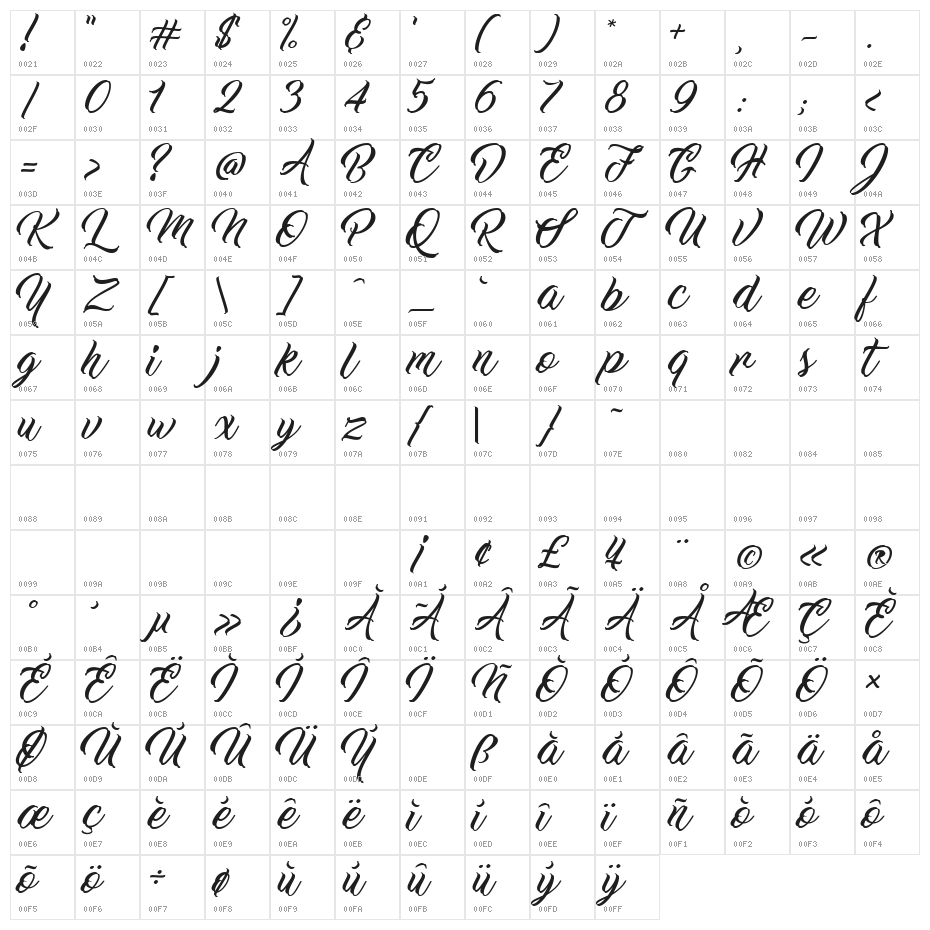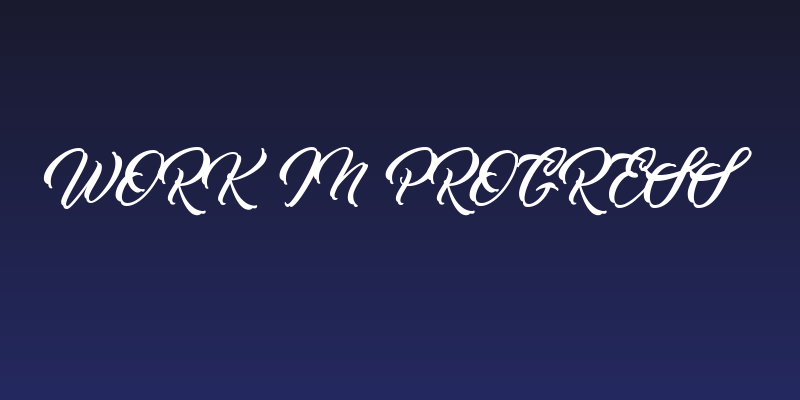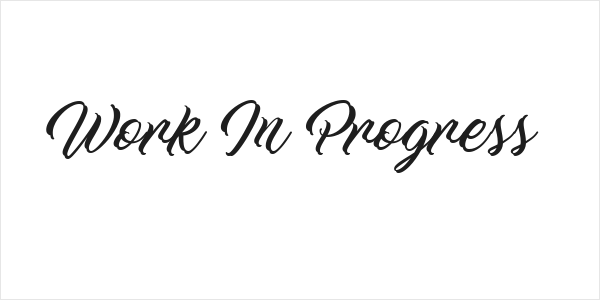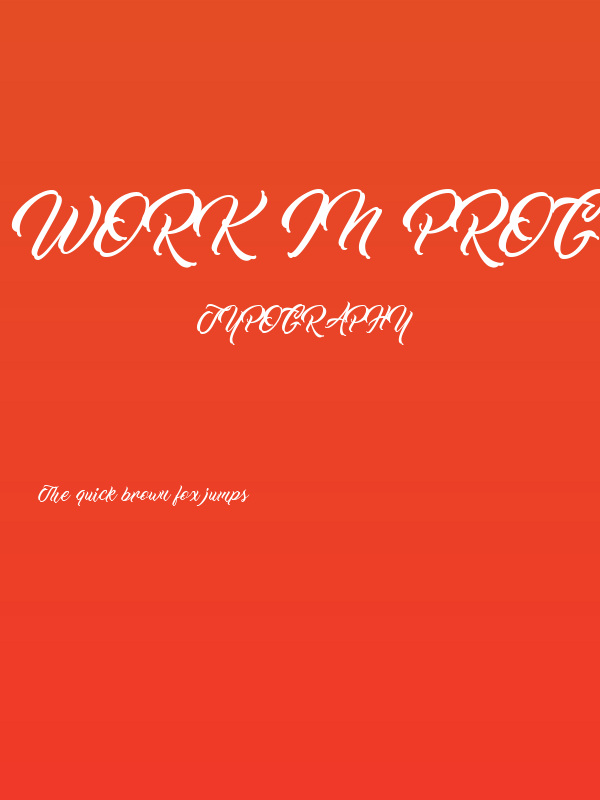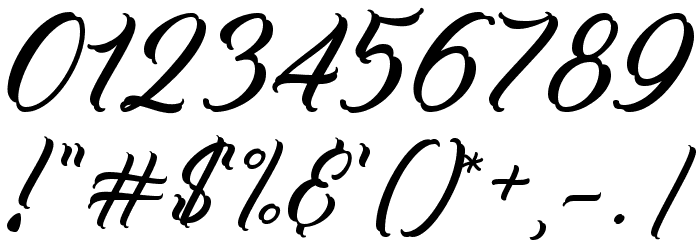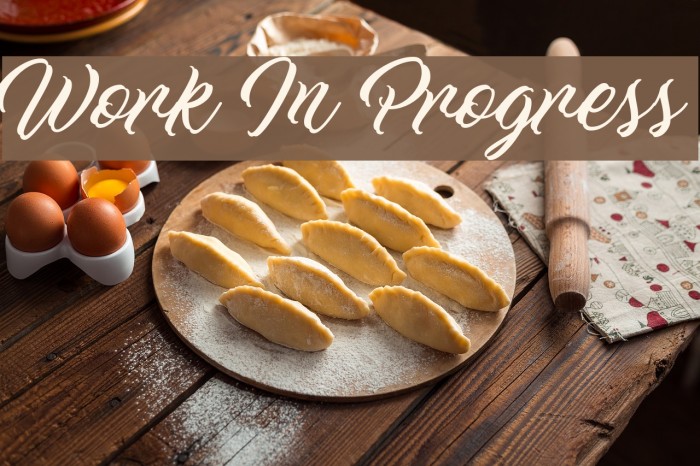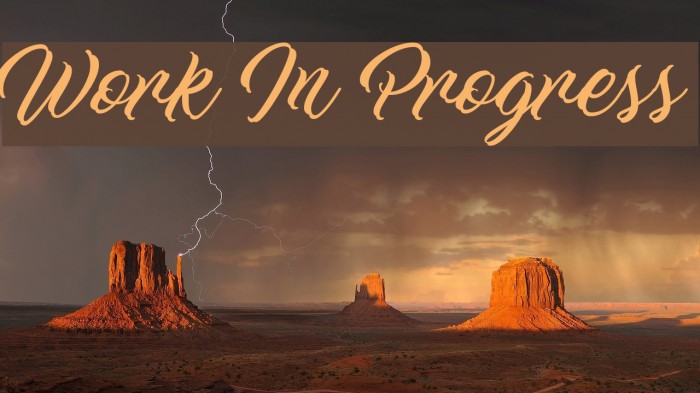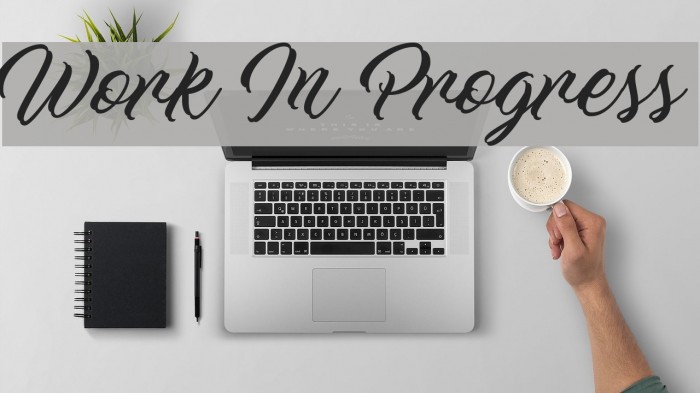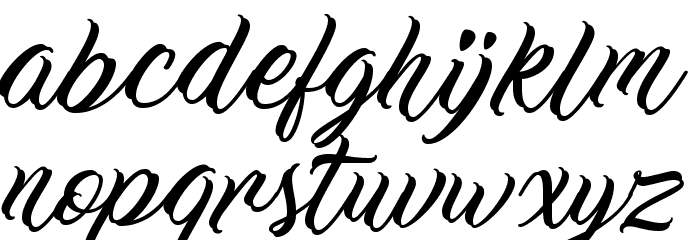
Work In Progress Font
Work In Progress Description
This font embodies a dynamic and fluid script style, characterized by its elegant and flowing letterforms. The strokes are smooth and connected, giving it a handwritten appearance that is both sophisticated and approachable. The uppercase letters are bold and prominent, while the lowercase letters maintain a consistent flow, enhancing readability. The numerals and special characters are designed to complement the overall script style, ensuring a cohesive look across all characters. This font is ideal for projects that require a personal touch, such as invitations, greeting cards, or branding materials that aim to convey elegance and creativity.